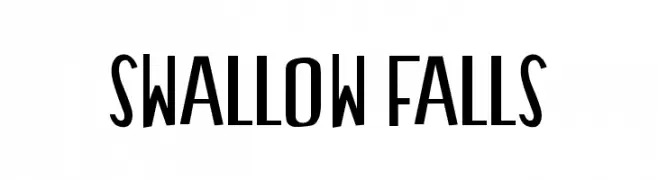
A bold, dripping font ideal for horror and Halloween themes.
A bold, shadowed font with gothic and spooky elements, perfect for Halloween themes.
A spooky, decorative font with jagged edges and eerie cutouts, perfect for Halloween themes.
A bold, decorative font with sharp angles and geometric shapes, ideal for striking designs.
A spooky, bone-themed decorative font ideal for Halloween designs.
A dynamic italic font with tall, narrow characters and a modern style.
A bold, modern font with tall, narrow characters and sharp edges.